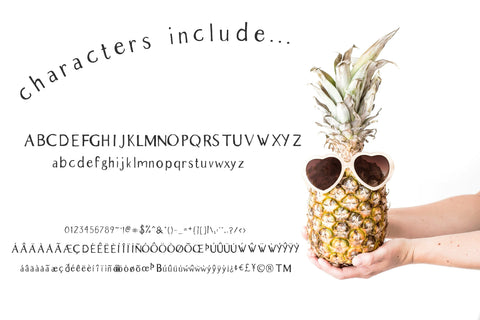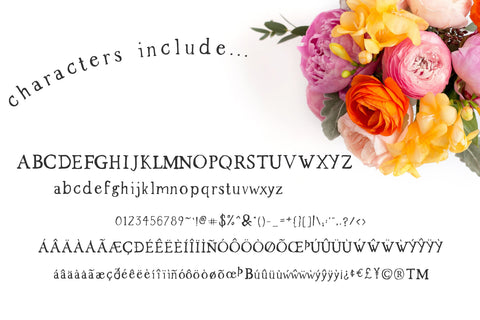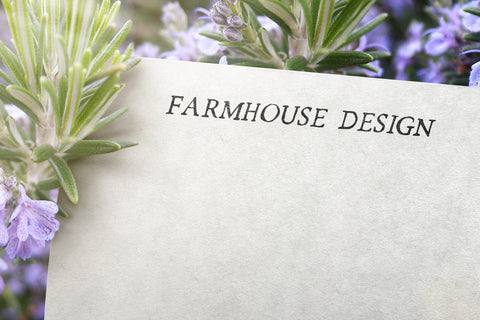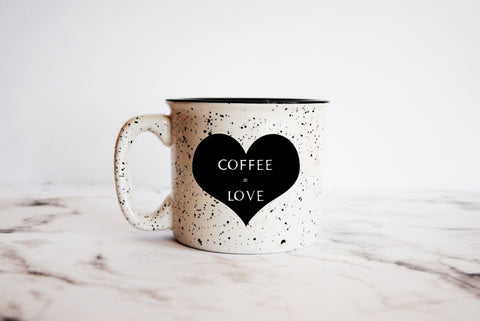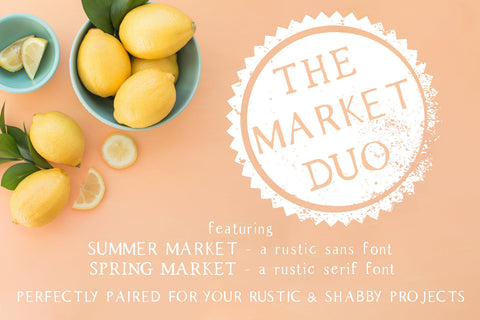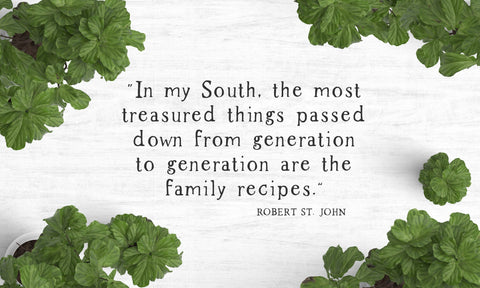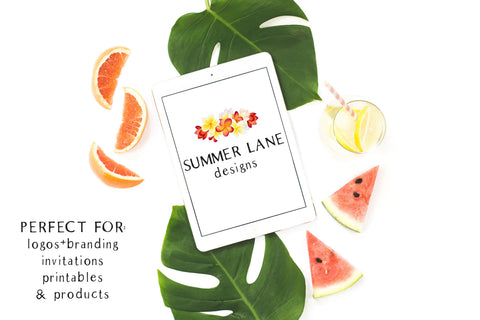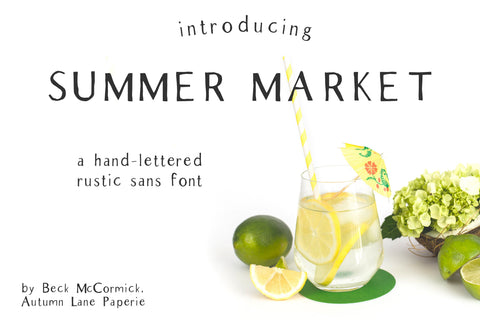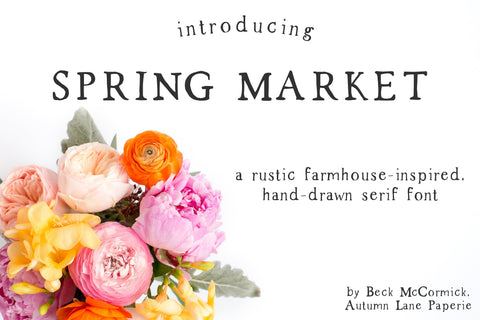
The Market Duo - Rustic Farmhouse Sans & Serif
These perfectly paired sister fonts are perfect for your next rustic or shabby chic project. Added bonus? Buying in a bundle saves you bucks! Use for logo design & branding, invitations, signage, product packaging, & more!